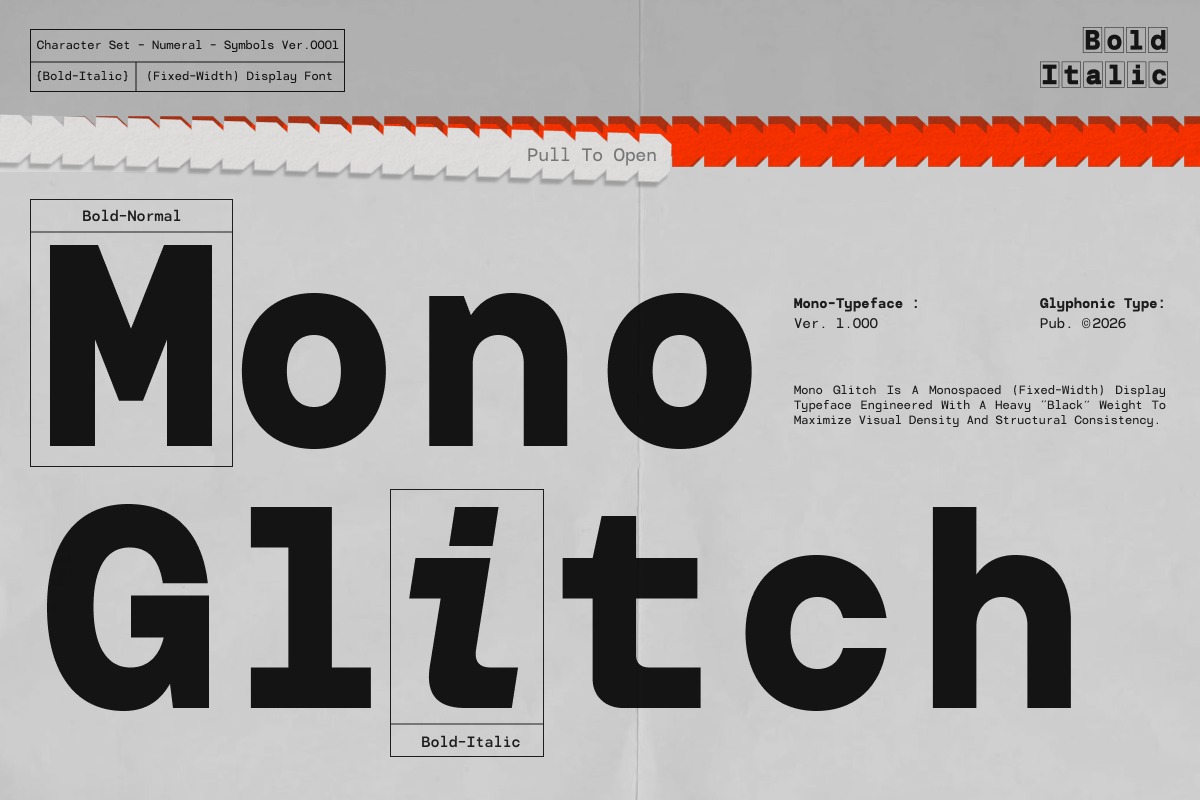
Monoglitch – Modern Monospace Font Family
Monoglitch – Modern Monospace Font Family is a premium-quality font developed to enhance your work with a polished, modern, and visually elevated look. GC Monoglitch – Modern Monospace is a bold modern monospace typeface engineered for precision, consistency, and contemporary digital aesthetics. Designed with fixed-width construction and clean geometric proportions, GC Monoglitch delivers a structured typographic voice that feels technical, confident, and highly functional across modern creative applications.
Built on the principles of true monospacing, every character occupies identical horizontal space, creating a balanced rhythm and exceptional alignment. Its bold weight, minimal details, and refined geometry make GC Monoglitch ideal for technology branding, coding-inspired graphics, UI interfaces, editorial layouts, posters, and futuristic visual systems where clarity and structure are essential.
Despite its technical foundation, GC Monoglitch maintains a modern and approachable personality. The combination of heavy strokes, clean curves, and fixed-width precision produces a strong visual presence while ensuring excellent readability in both print and digital environments.
Features :
Modern Monospace Typeface
True Fixed-Width Character Set
Bold Geometric Construction
Clean & Structured Letterforms
High Readability and Consistent Alignment
Perfect for Coding, UI, Posters & Editorial
Suitable for Branding, Technology & Digital Design
Multilingual Support (170+ Languages)
GC Monoglitch delivers modern precision — a bold monospace typeface crafted for structured layouts, digital creativity, and contemporary visual communication.